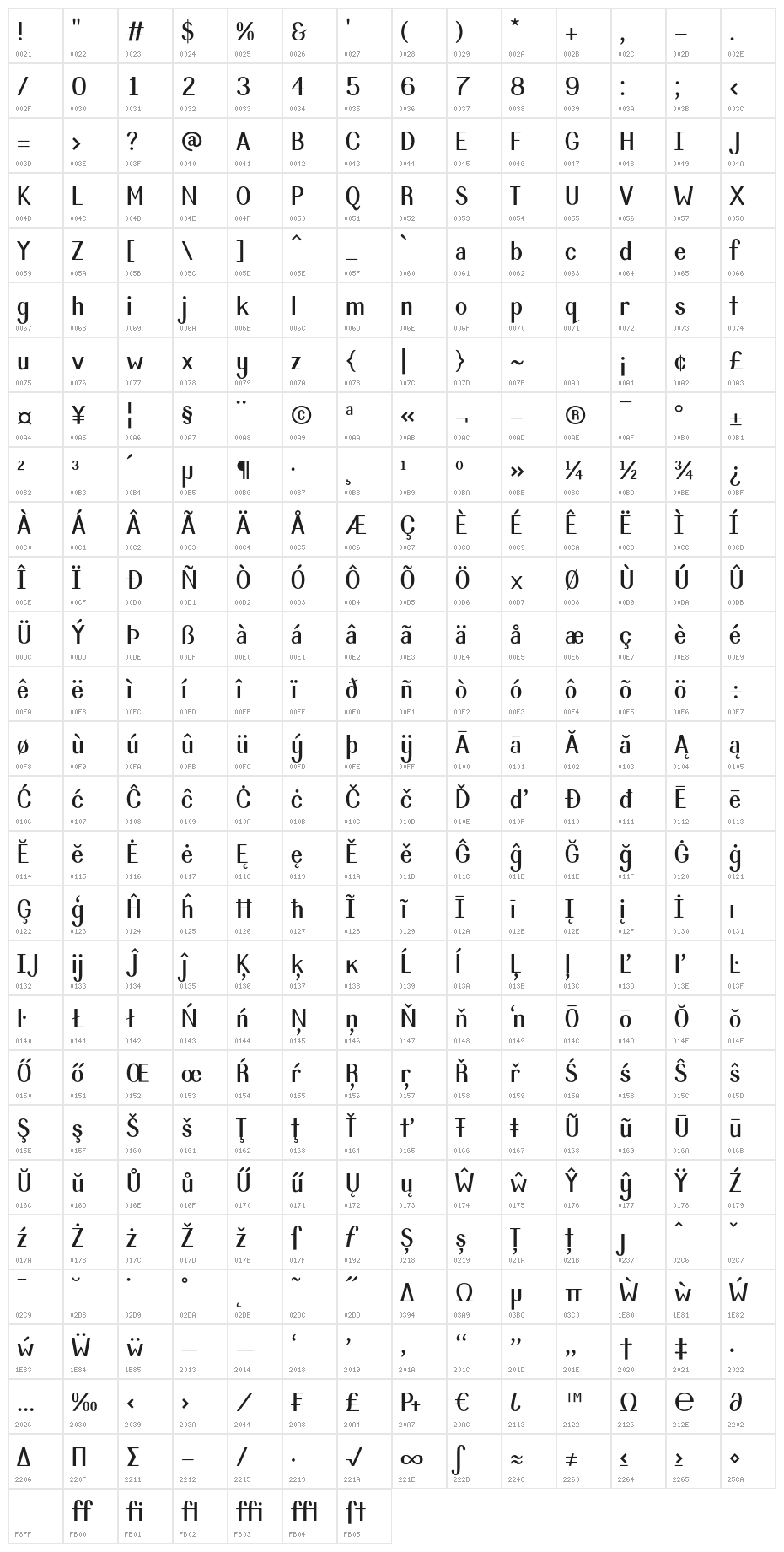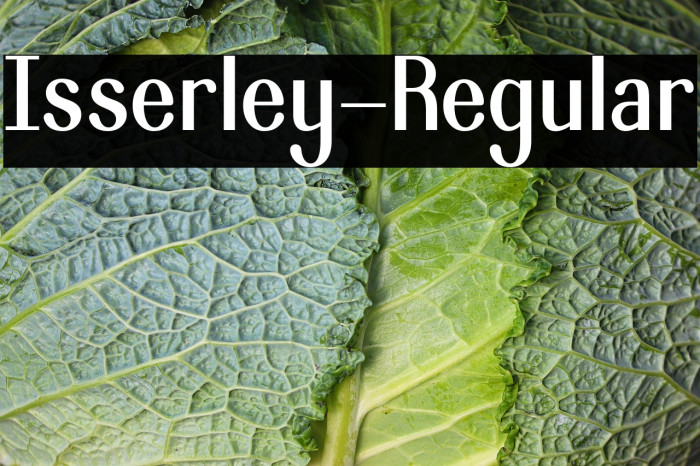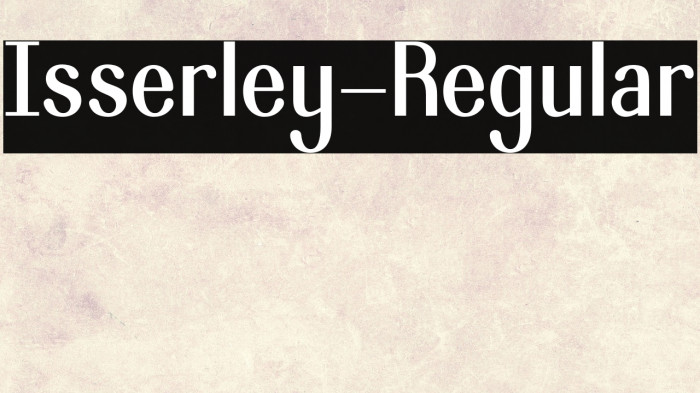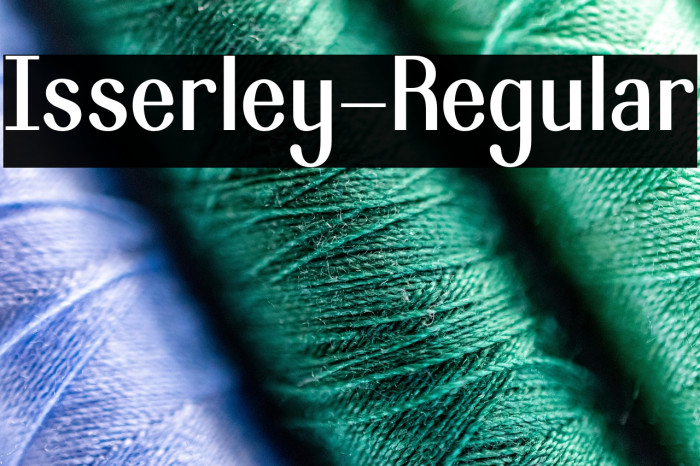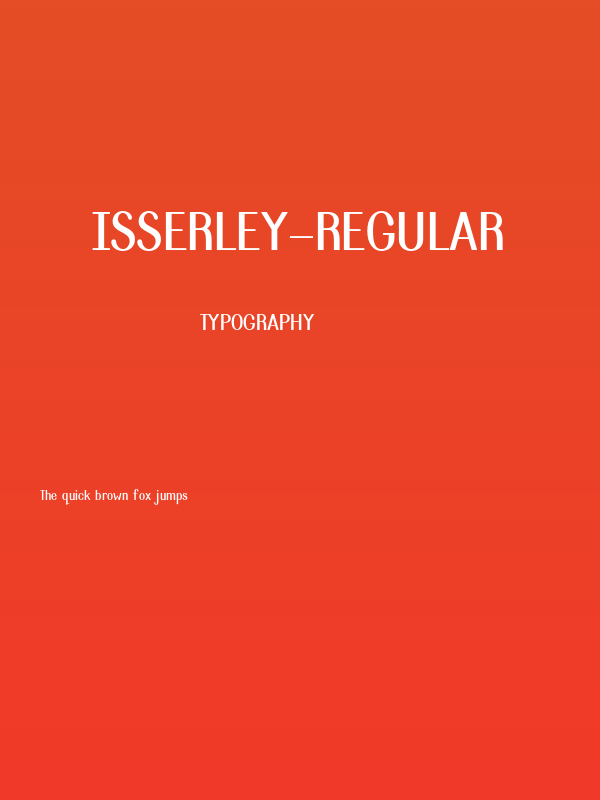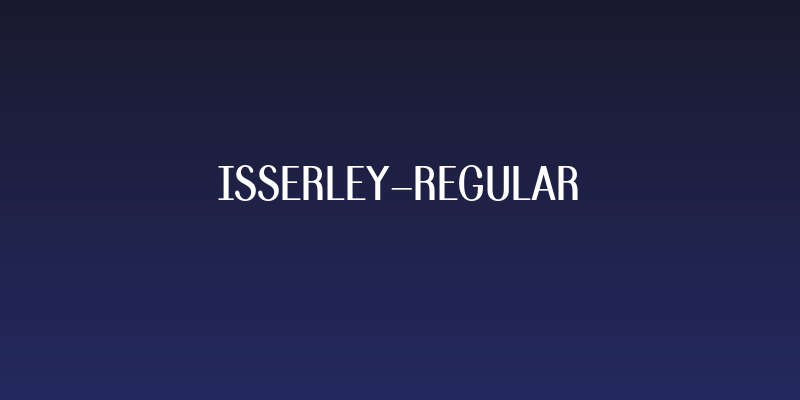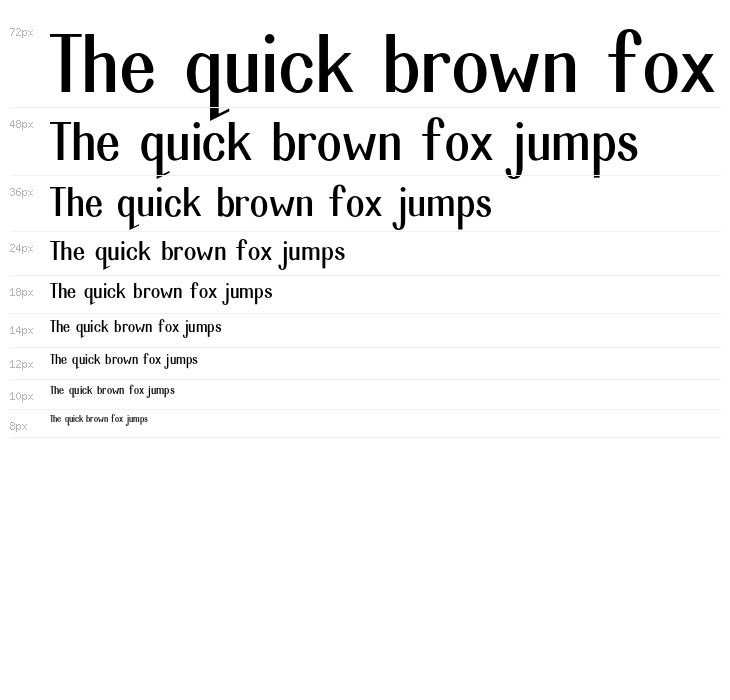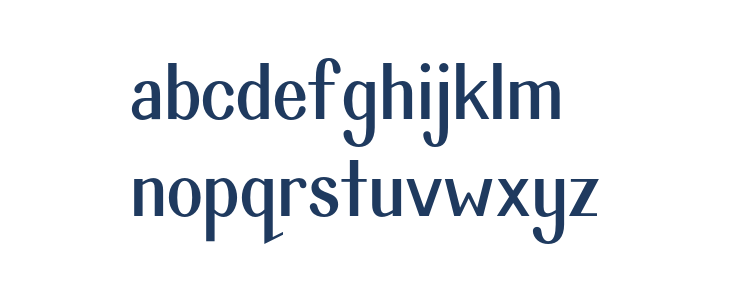
Isserley-Regular Font
Isserley-Regular Description
This font features a unique blend of modern and classic elements, characterized by its clean lines and subtle curves. The uppercase letters are bold and assertive, while the lowercase letters maintain a softer, more approachable appearance. The numerals are clear and distinct, ensuring readability. Special characters are well-defined, adding versatility to the font. The overall design is balanced, making it suitable for a variety of applications.
| Use Case | Headlines, Body text, Logos |
| Proposed Projects | Ideal for branding projects, editorial design, and advertising materials where a modern yet classic look is desired. |